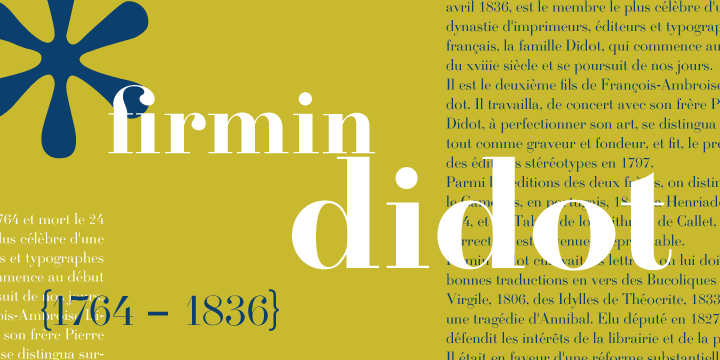
Please note, you must purchase this font for commercial use. You can download Firmin Didot Font Free Download for testing purposes and explore its elegant, classic design. Firmin Didot Font is perfect for luxury branding, high-end editorial projects, fashion design, and any project that requires a refined and timeless aesthetic.
With its distinctive serifs and high contrast between thick and thin strokes, Firmin Didot Font brings a sophisticated, old-world charm to your creative work. It's widely used in fashion magazines, logos, and luxury advertising, offering a sense of exclusivity and refinement.
Firmin Didot Font Free Download supports multilingual characters, making it suitable for global projects and diverse audiences. Its beautiful design ensures readability and elegance, making it ideal for both large titles and detailed body text.